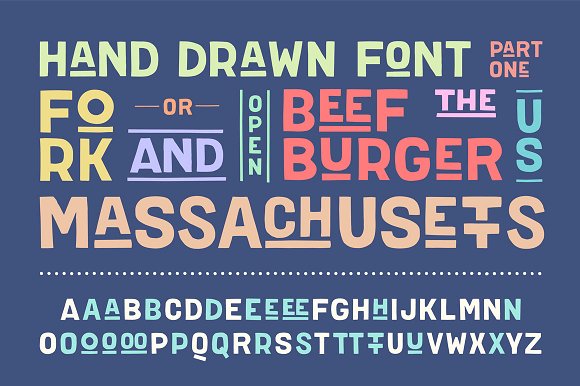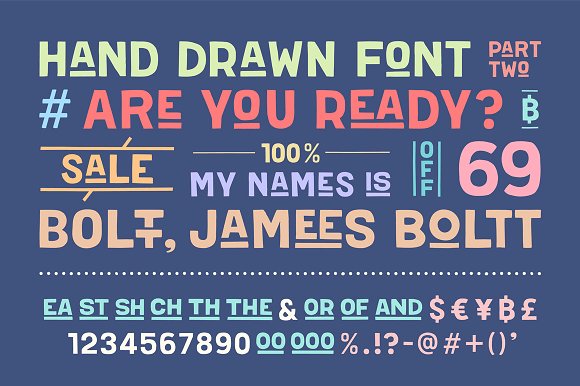
Hand-drawn font Boltt, James Boltt
In order to provide quicker answers for common question what fonts I’m using in my illustrations I decided to to present them as independent products.
I needed a bright bold variable font for my illustration works which is handmade and with plenty of alternative symbols. I couldn’t find nothing better than draw it myself. :–) I drew it by hand and named it the Boltt, James Boltt.